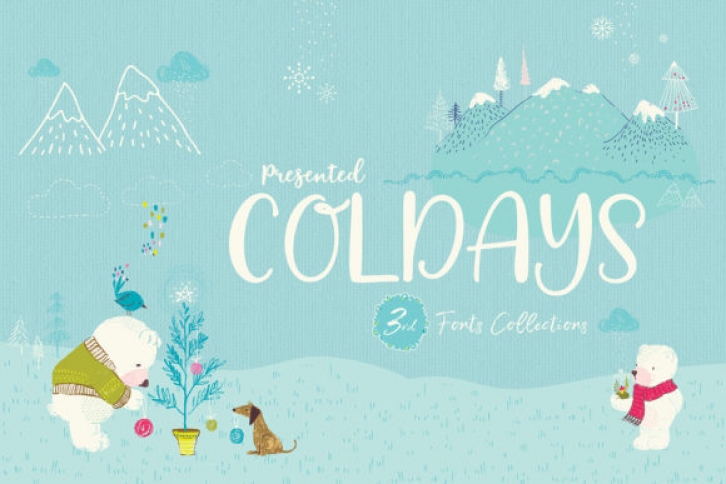
Coldays Memories is a set of beautiful fonts. This pack combines three trendy and sweet fonts: A hand-Drawn Sans Serif Caps, a Brush Script, and a modern Script.